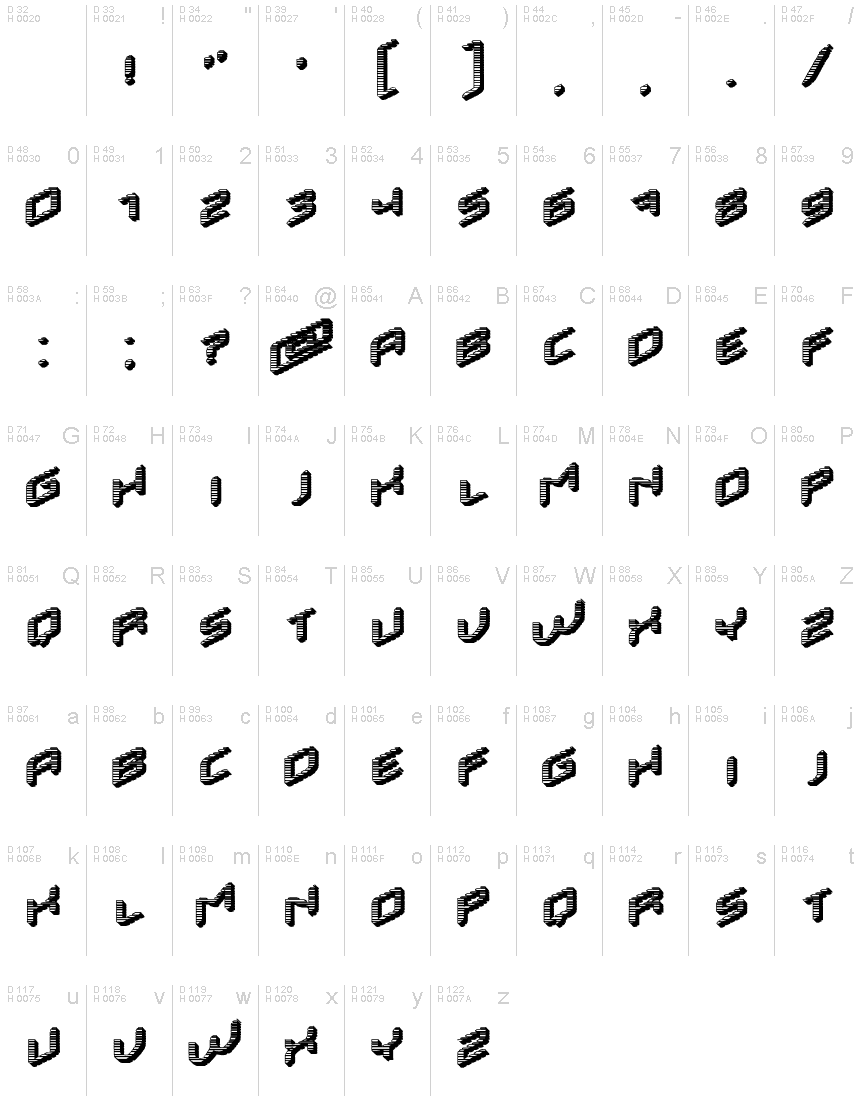
Skerm Regular
Experience the futuristic and bold Skerm semi-light font designed by Vladimir Nikolic. With its expanded width and 3D techno style, this display font is perfect for projects that require a sleek and modern feel. Use Skerm for branding, advertising, or even video game design to elevate your project to the next level. Let your text pop with its unique character set that's sure to catch the eye of anyone who sees it. Make a statement with Skerm and stand out from the crowd.